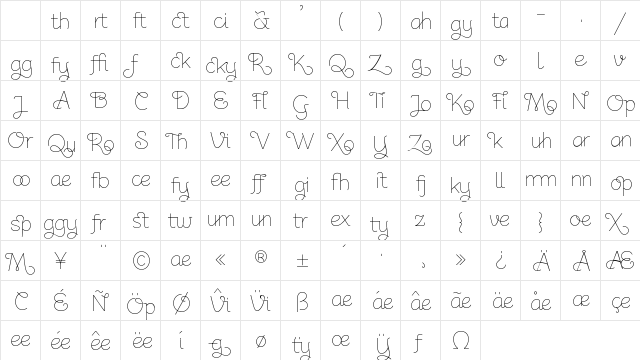
Kushtie Ligatures is a composed and adaptable typeface that performs quietly and consistently across a wide range of design contexts. Its slender proportions lend an understated elegance to any composition.